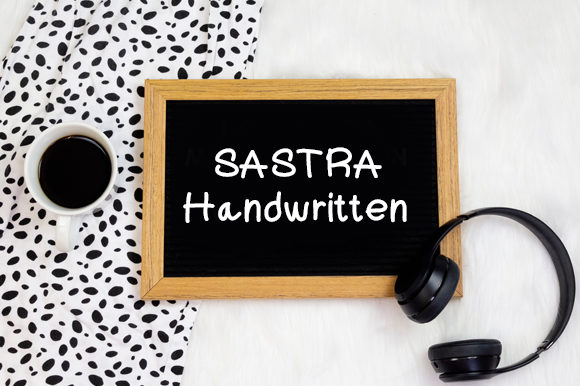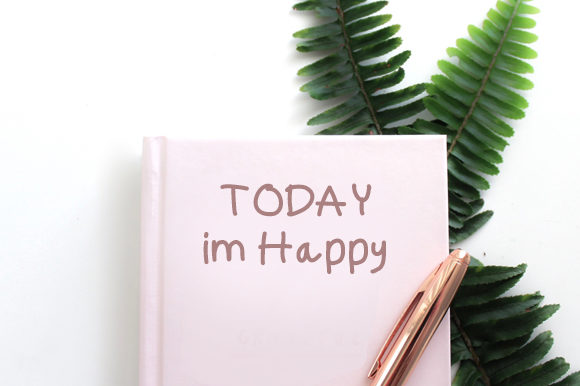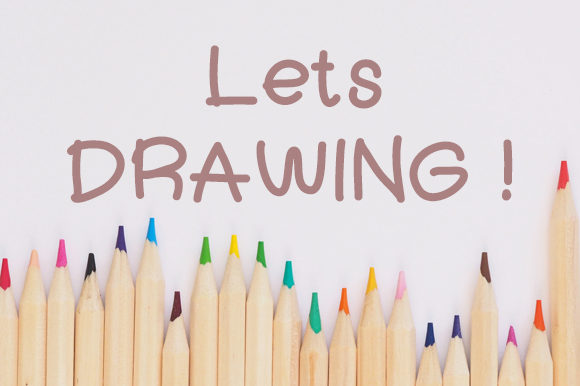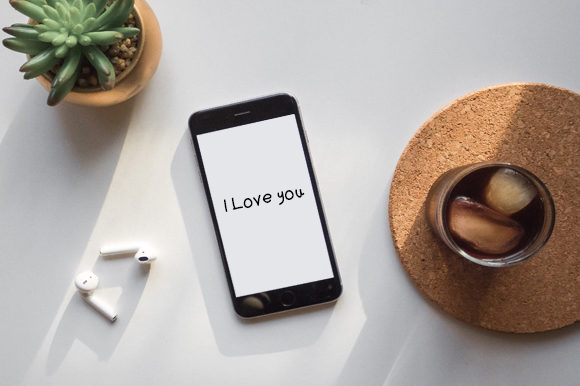
Sastra Font
About Sastra Font
Sastra is a sweet and quirky handwritten font.Get creative with its childlike playfulness, and use it to brighten up any kids and school project! This enchanting font will turn any creative idea into a true standout!